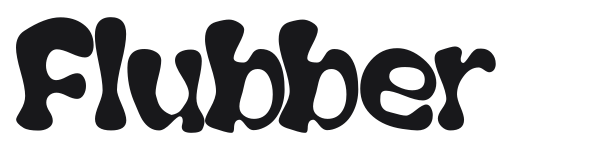
Dakinizazi
by Dakinizazi
Dakinizazi is a thick, bubbly display face with rounded letterforms that lean fully into funky, retro territory. The bold strokes and soft curves give it a warm, groovy energy reminiscent of '70s record sleeves and hand-painted shop signs. Built for headlines and display use where you want type that feels playful, physical, and unapologetically loud.